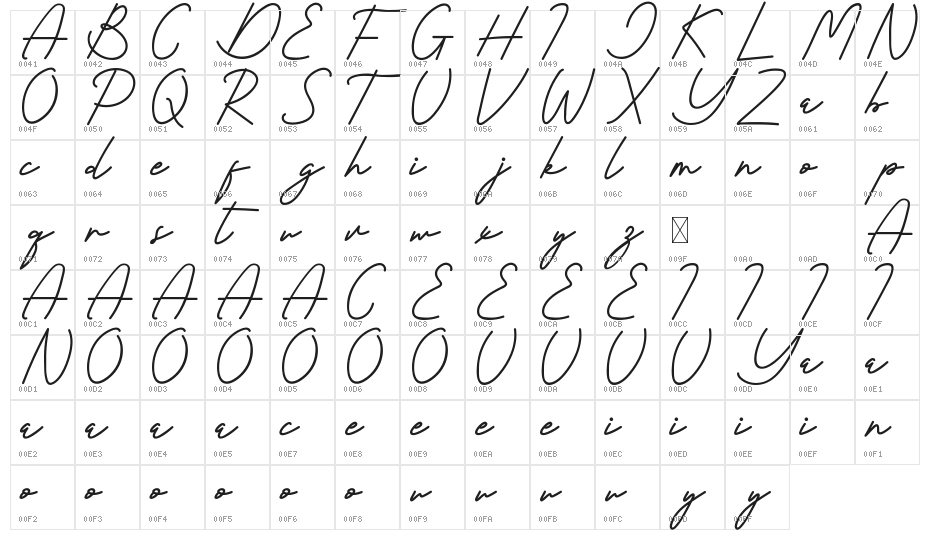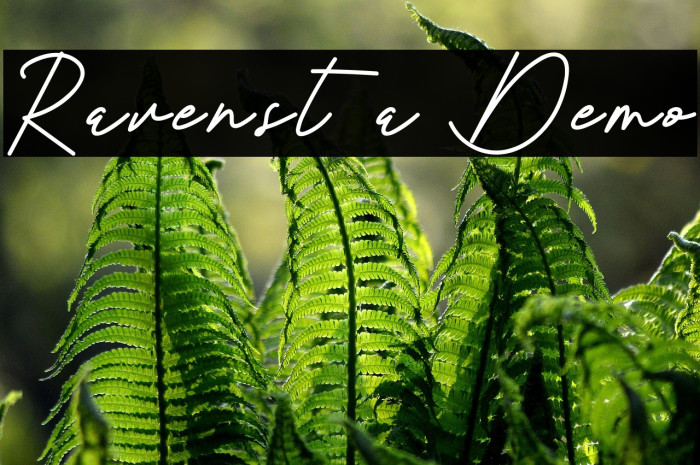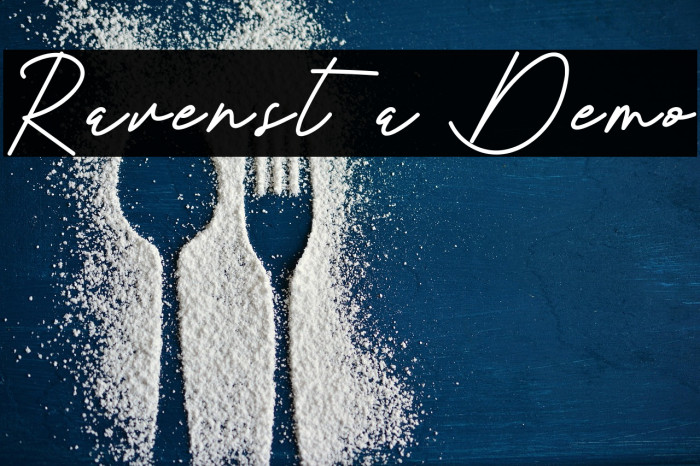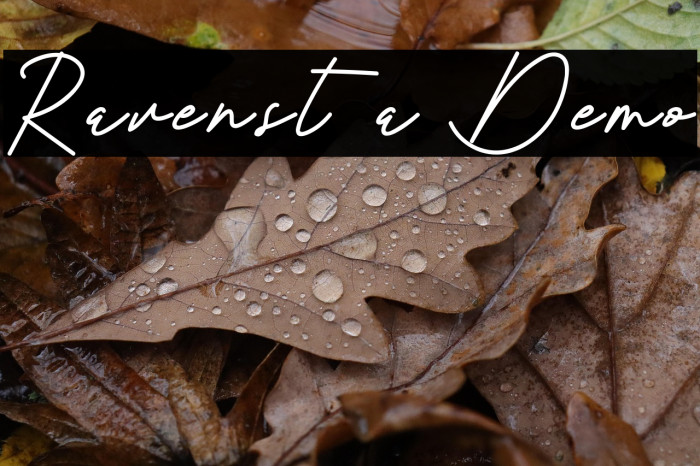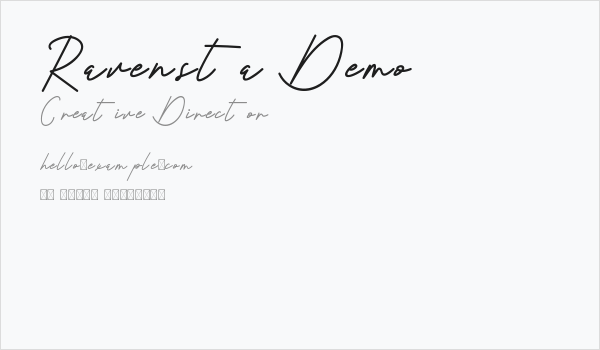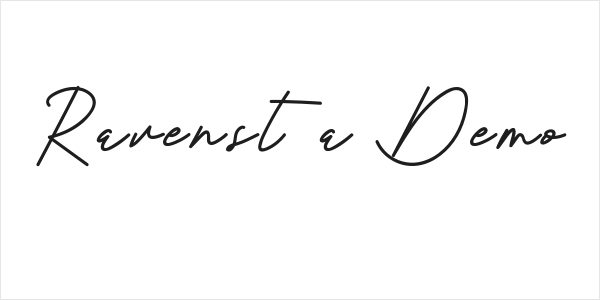
Ravensta Demo Font
Ravensta Demo Description
This font features a modern, handwritten style with a casual and flowing appearance. The uppercase letters are elegantly crafted with smooth, continuous strokes, giving them a sense of movement and fluidity. The lowercase letters maintain a consistent style, with some characters like 'f' and 'g' having distinctive loops and curves that add character. The numbers are clear and legible, matching the overall aesthetic. Special characters are included, maintaining the same flowing style. The font's overall look is both stylish and approachable, making it suitable for a variety of creative projects.
| Proposed Projects | Ideal for invitations, greeting cards, branding, and social media graphics. |